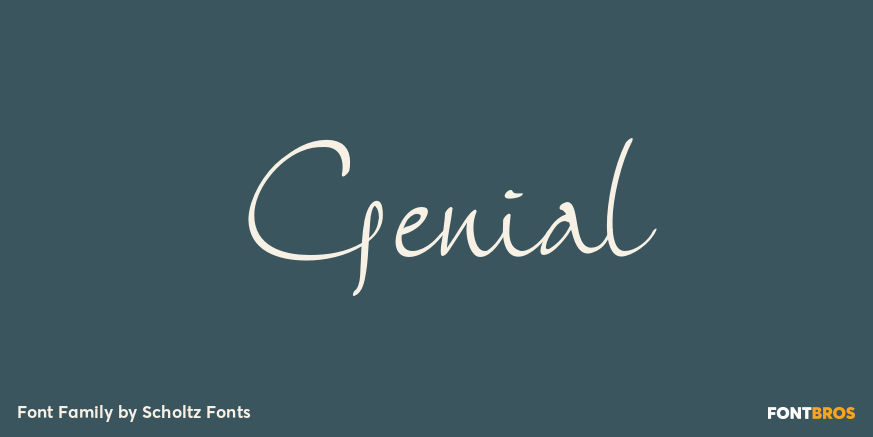
Genial
About Genial
Genial is an elegant, contemporary script font in nine styles, specifically designed for maximum versatility. All of the styles, ranging from condensed thin to expanded fat, are clear and legible. The font conveys a feeling of relaxed elegance. Use a…